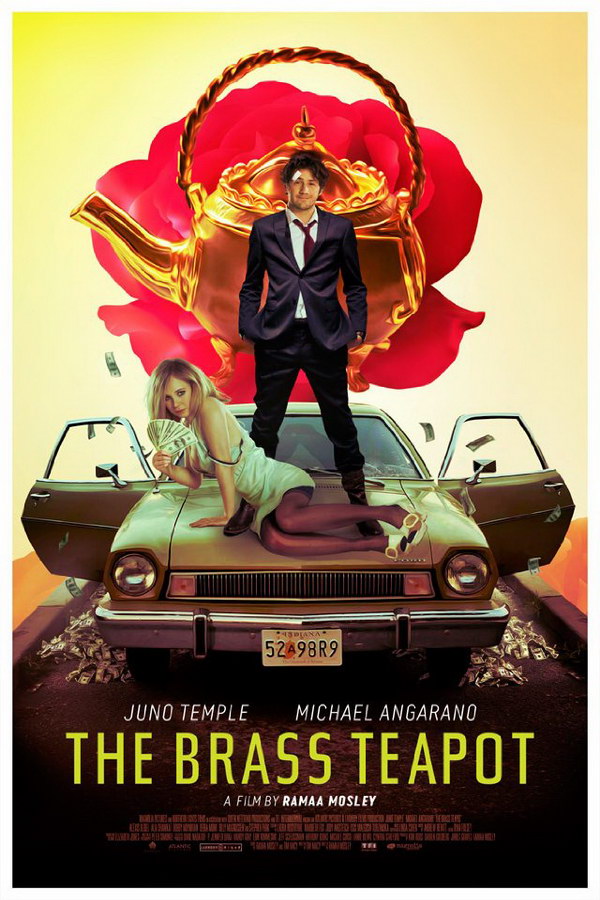
The Brass Teapot Font
ComedyThe Brass Teapot is a dark comedy about a struggling young couple who discovers a magical teapot that produces money whenever they harm themselves.
The movie title "The Brass Teapot" is most likely set in Tasse Regular font, which was created by Guy Jeffrey Nelson. Tasse is a letterform that Paul Renner, the designer of Futura, researched during the mid-1950s. More information about this font can be found here.